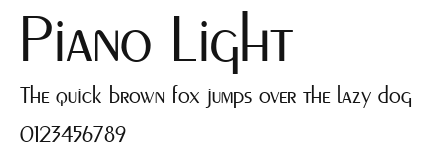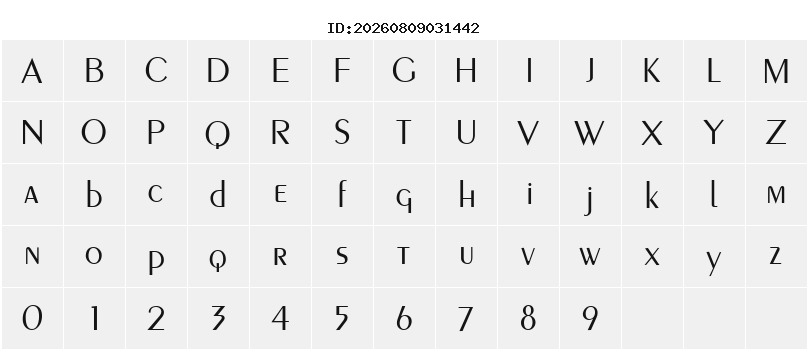
• Font Name: Piano Light
About Piano Light.ttf
Piano Light.ttf is a modern, elegant sans-serif font designed for ultimate readability and visual harmony. Perfect for branding, headlines, web design, and print materials.